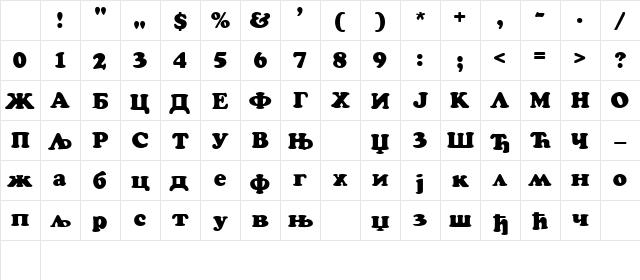
Complete C_Coopertino Normal Normal glyph index. Displaying only characters natively supported by C_Coopertino Normal Normal font.
C_Coopertino Normal is a composed and adaptable typeface that performs quietly and consistently across a wide range of design contexts.